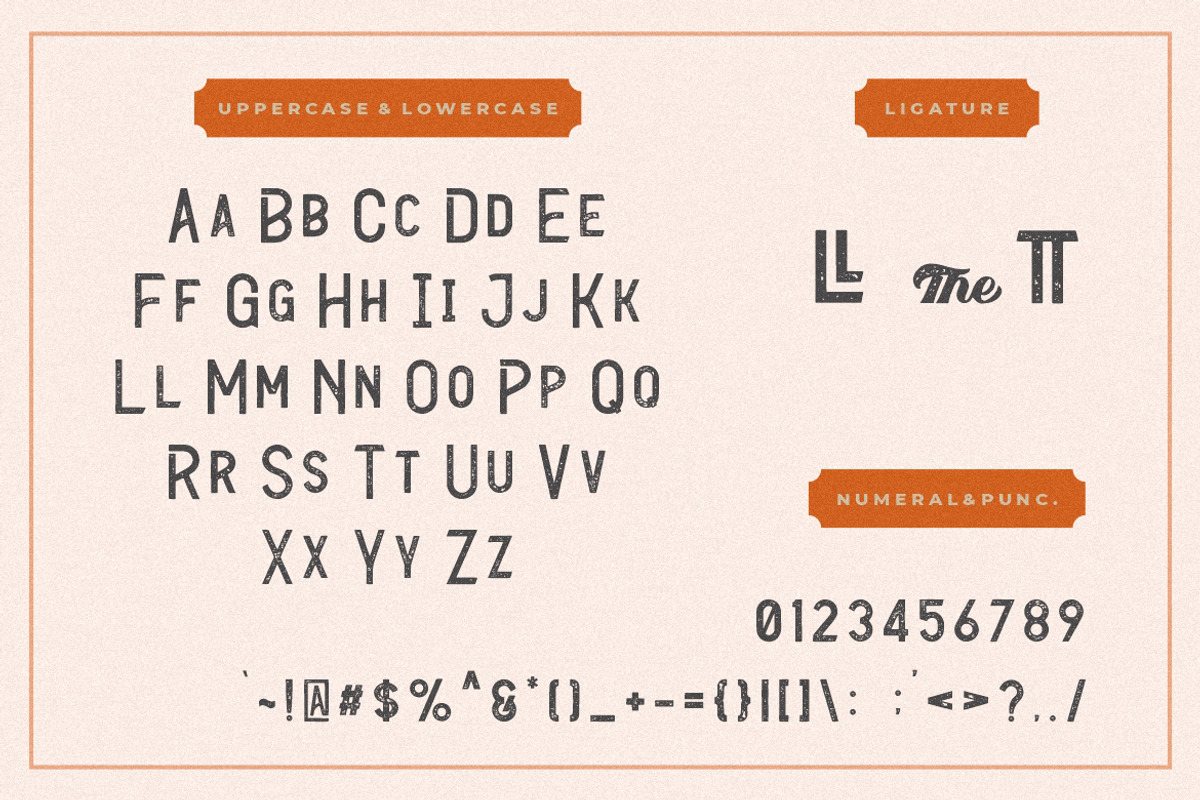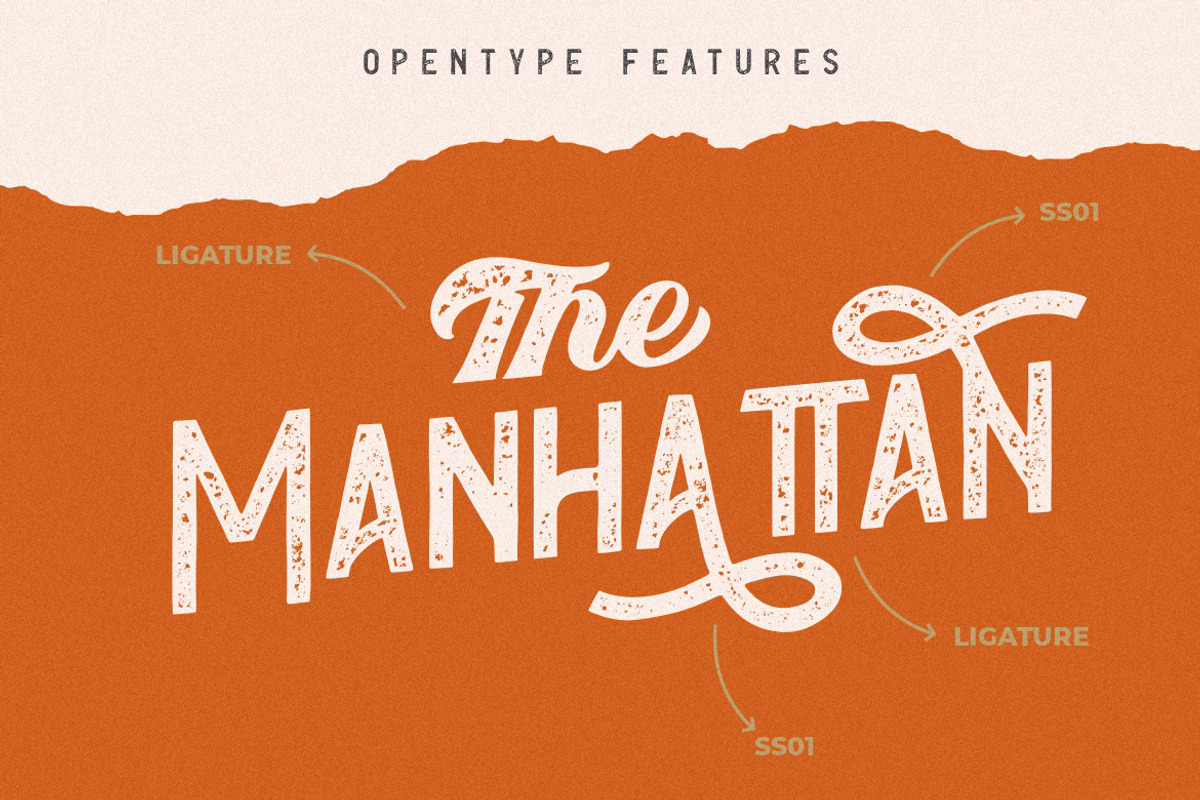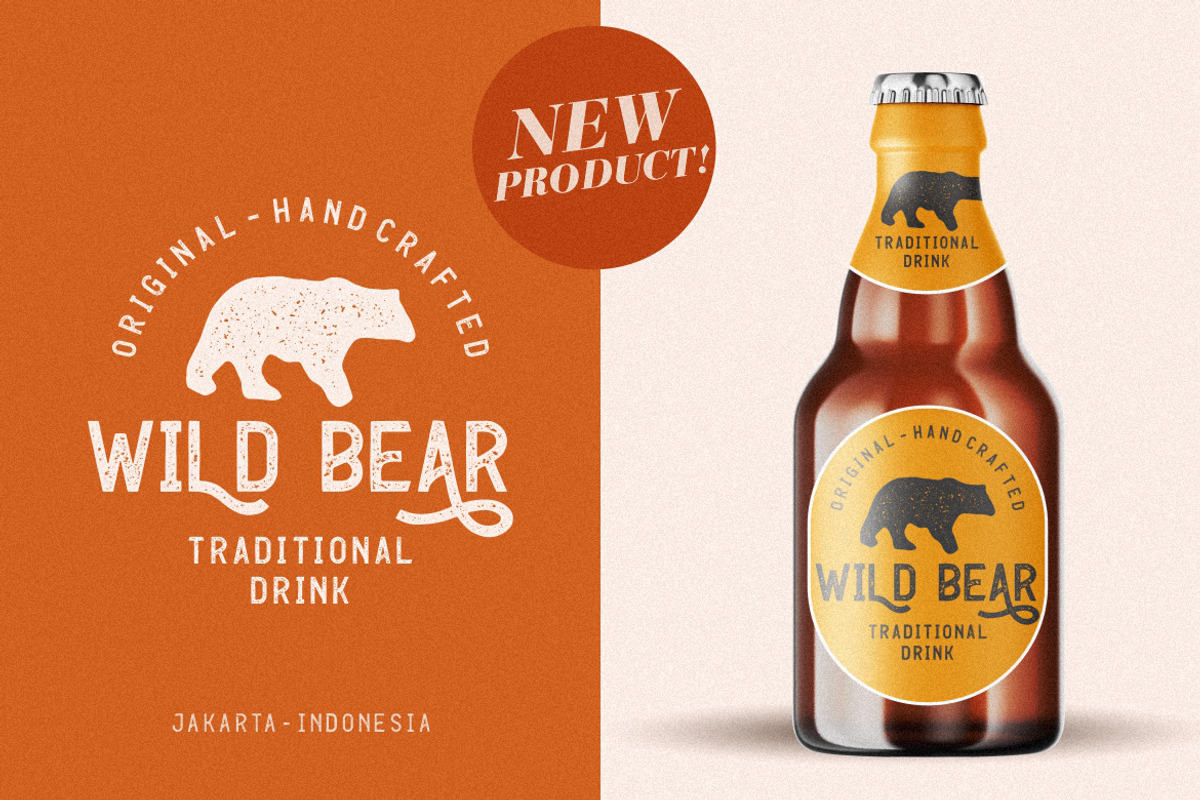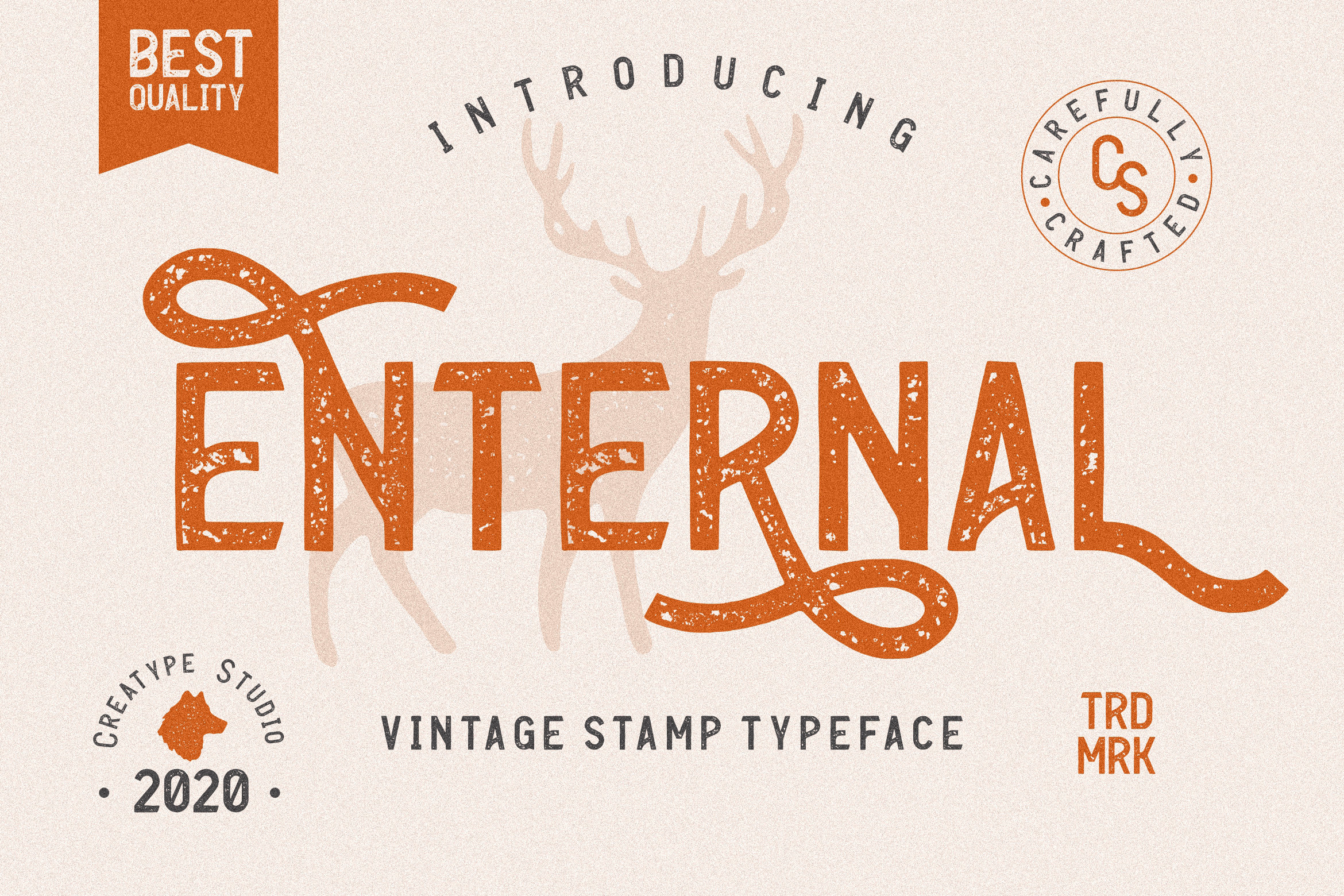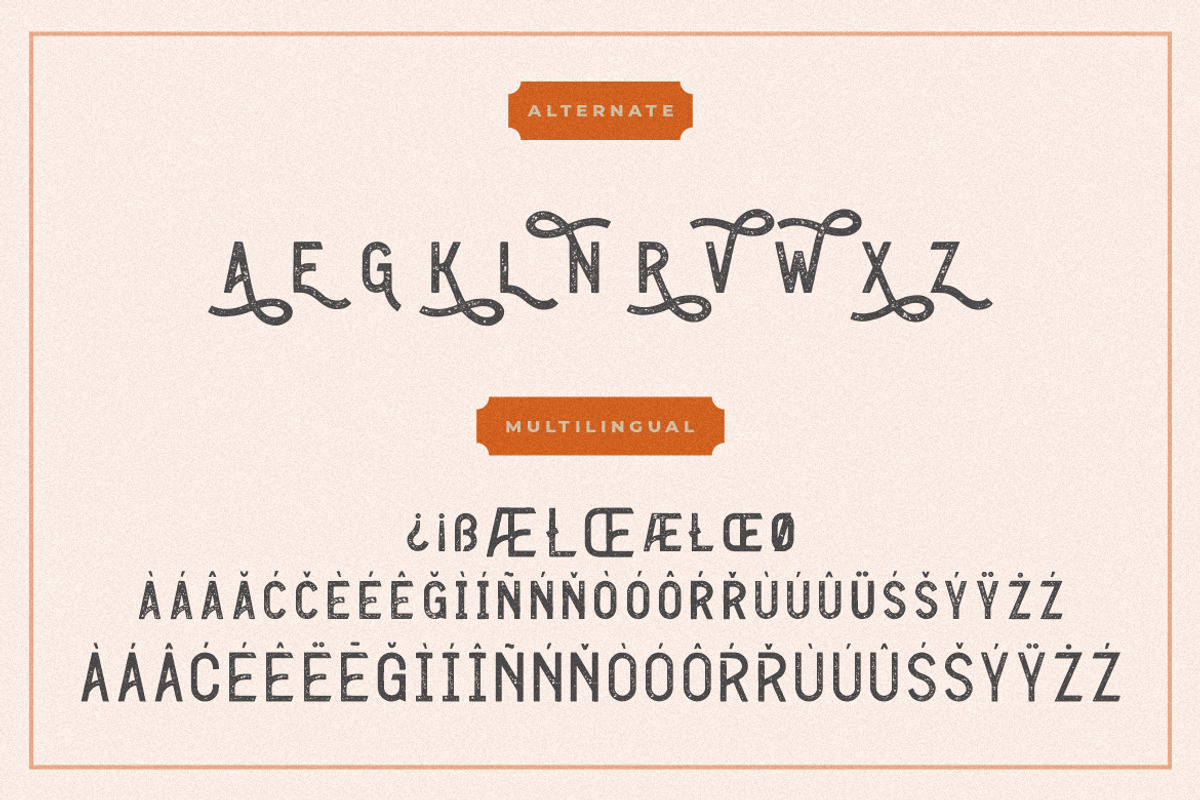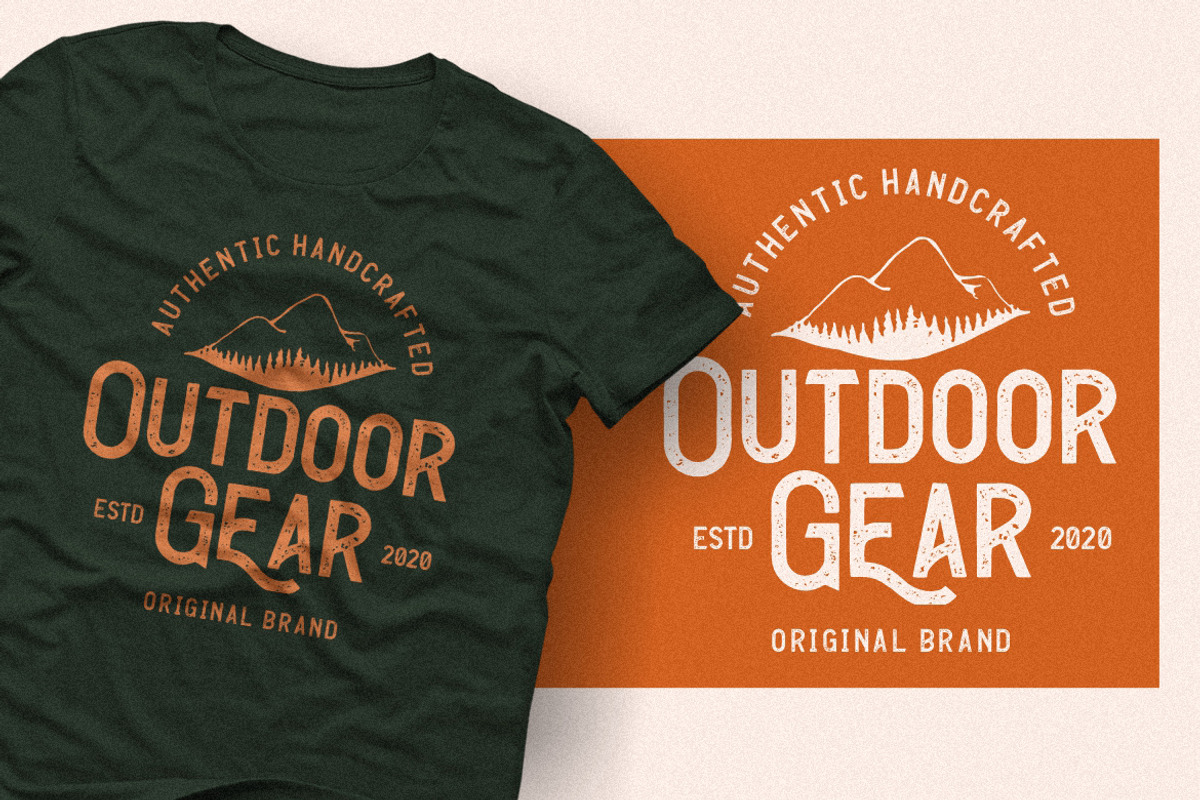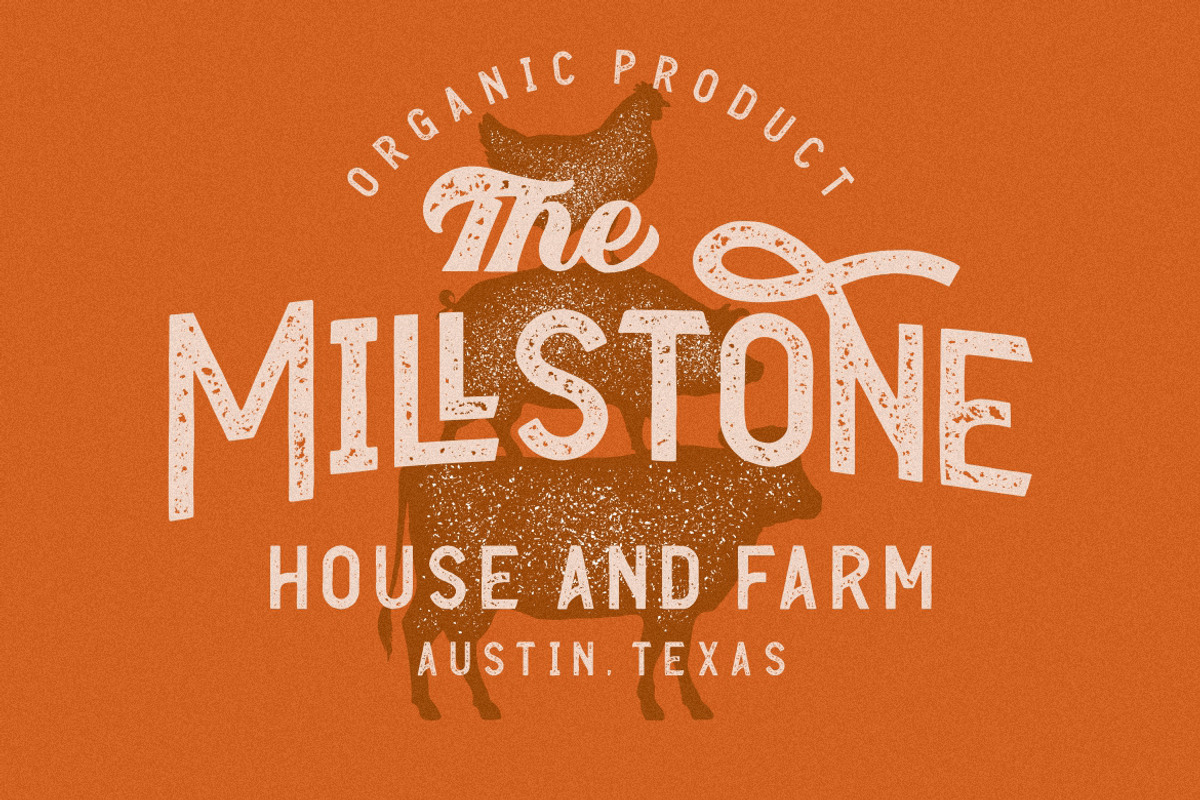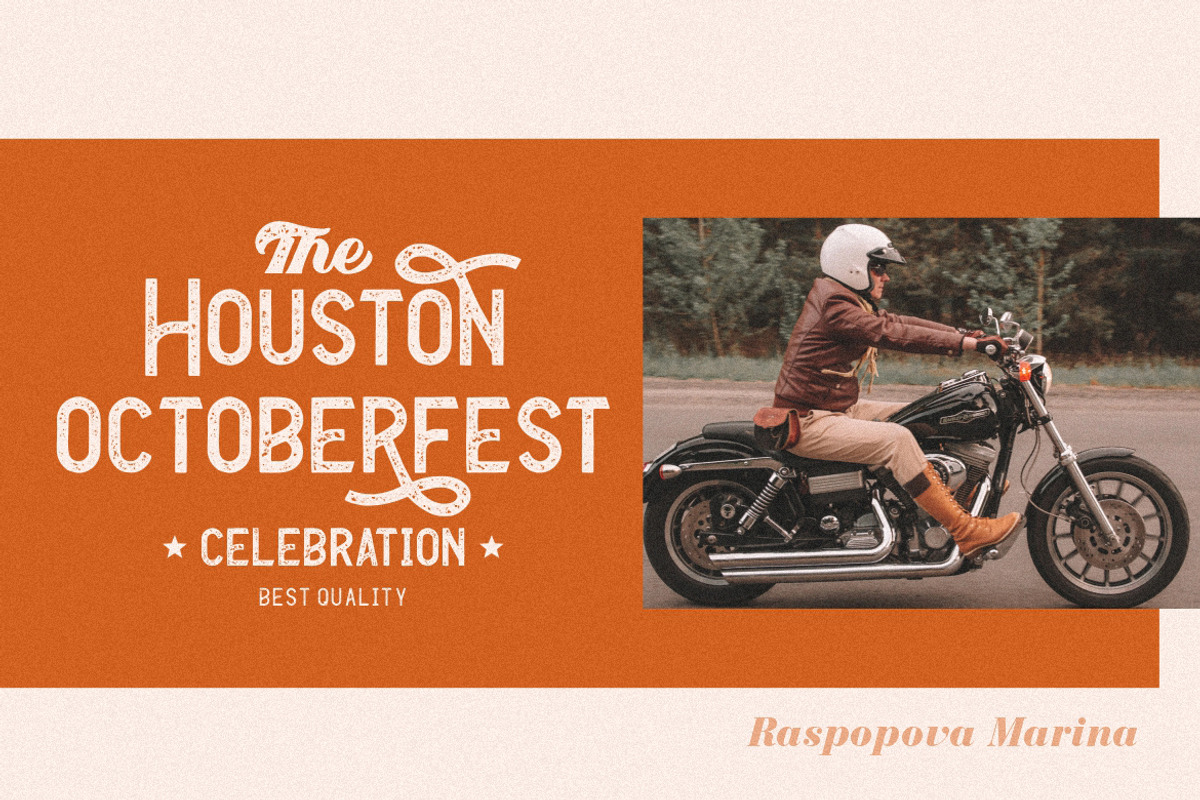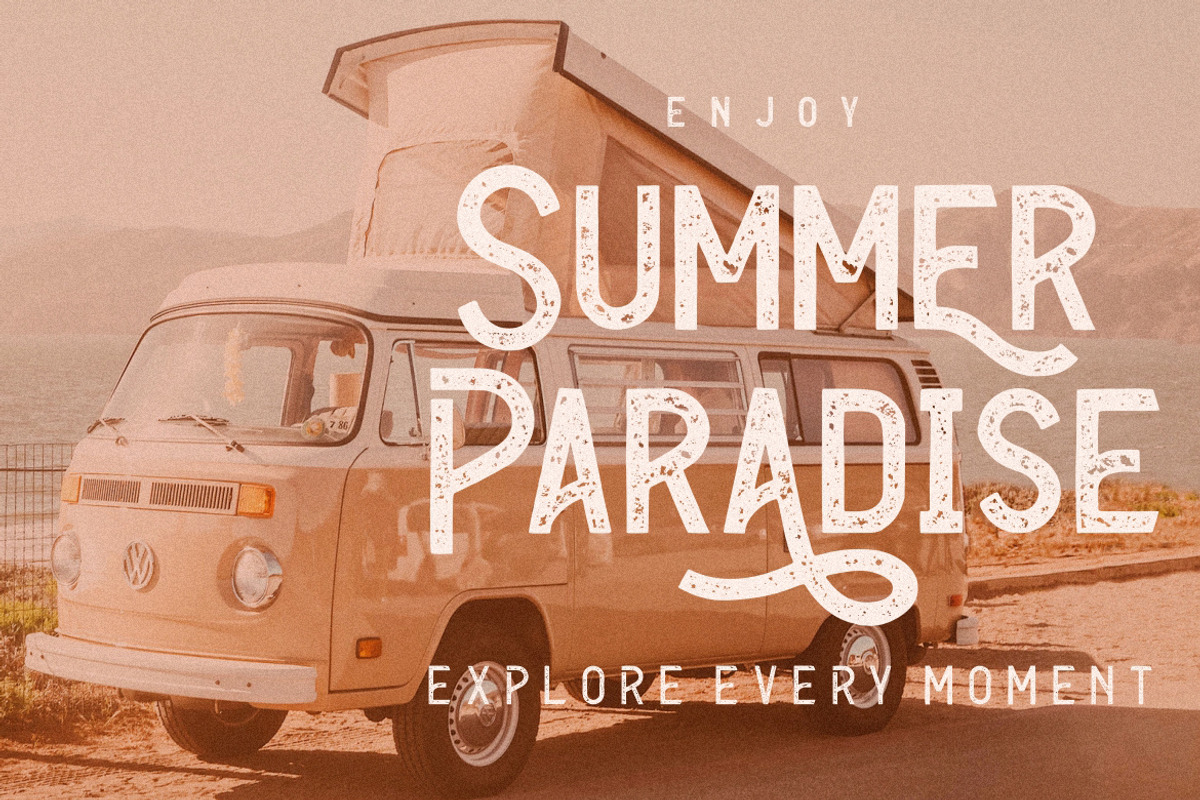
Enternal Vintage Stamp Typeface
Enternal is a vintage sans serif family with stamp textured effect coming with ligature and bunch of alternates.
Enternal is perfect for branding projects, logo, wedding designs, social media posts, advertisements, product packaging, product designs, label, photography, watermark, invitation, stationery and any projects that need handwriting taste.
- Ligature & Alternate